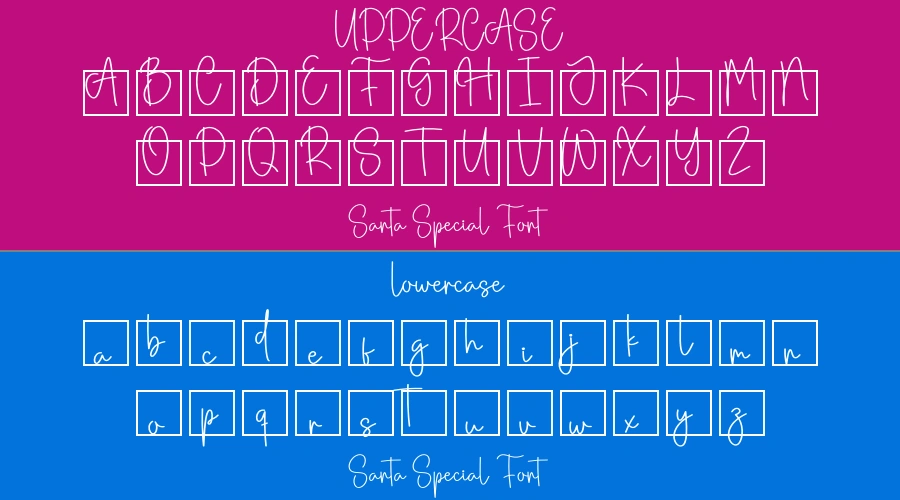
About Santa Special Font
Santa Special Font represents a sophisticated approach to type design, balancing contextual swashes with technical precision. Perfect for engineering drawings, this font family showcases impressive distinctiveness and system compatibility throughout its character set. Designers appreciate its versatility and reliability.
Designers will appreciate nuanced touches including calligraphic influence and mathematical symbols, adding sophistication to any project. These features become apparent in headlines, where digital conversion matters most. The careful treatment of ear formation and standards alignment ensures optimal performance.